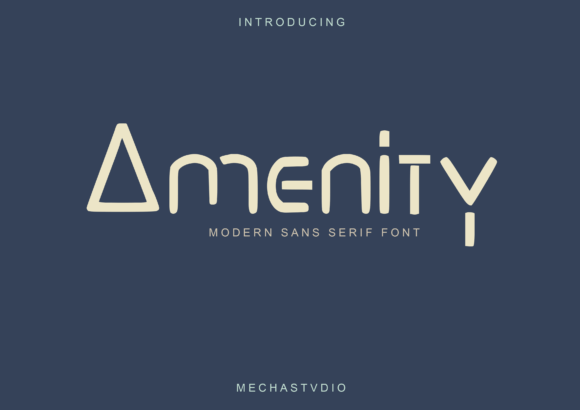
Unlock the Power of Amenity Font: Elevate Your Designs
Enter Amenity Font, a modern, clean, and unique sans serif font designed to transform your work into a true standout. With its versatility and adaptability, Amenity Font is the perfect companion for designers seeking to elevate their projects and leave a lasting impression. Whether you’re working on a branding campaign, a website, or a marketing material, Amenity Font has the potential to take your designs to new heights.
Amenity Font Key Features
- Font Family: Amenity Font is a sans-serif font family designed for modern and clean typography.
- Character Count: The font family includes over 300 glyphs, providing extensive language support for various scripts and languages.
- Unique Characteristics: Amenity Font features a clean and minimalist design with subtle rounded corners, making it ideal for modern branding and digital design projects.
Amenity Font Review
As a designer, I had the opportunity to work with the Amenity Font, and I must say it has both its pros and cons. Here’s my honest review.
- Unique aesthetic: The Amenity Font has a distinctive, modern feel that sets it apart from other fonts in its class.
- Legibility: The font is highly legible, making it perfect for body text, headings, and even signage.
- Wide range of weights: The Amenity Font comes in a variety of weights, allowing for flexibility in design and versatility in usage.
- Limited language support: Unfortunately, the Amenity Font doesn’t support a wide range of languages, which can be a major limitation for global brands.
- Not ideal for fine typography: The font’s bold strokes can make it difficult to use for fine typography or intricate designs.
Overall, I think the Amenity Font is a great choice for designers looking for a modern, legible font. While it may have some limitations, its unique aesthetic and versatility make it a valuable addition to any design arsenal.
Use Amenity Font for titles, headings, and body text in your designs. It’s particularly well-suited for modern, minimalist designs. Experiment with different font sizes and styles to create visual interest. Use it in combination with other fonts to create a unique and eye-catching design.